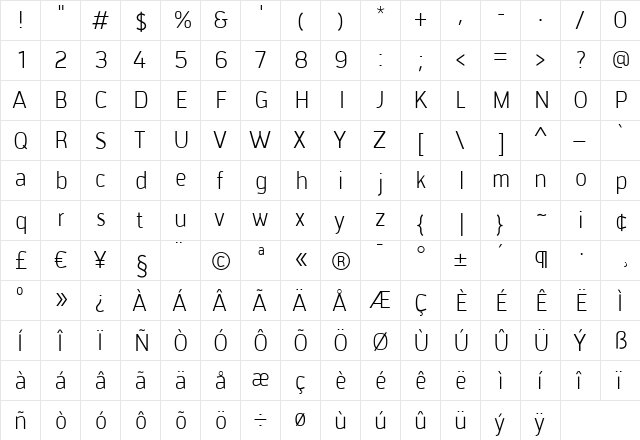
Tirana Light Regular
| Foundry | Rui Abreu |
| Designer | Rui Abreu |
Design Context for Tirana Light Typeface
Tirana Light offers clean, dependable letterforms without strong stylistic allegiance, making it a practical choice for designers who need flexibility. Its slender proportions lend an understated elegance to any composition.
Pro Tip: Pair Tirana Light with a font of contrasting weight or personality to build a more expressive typographic hierarchy.